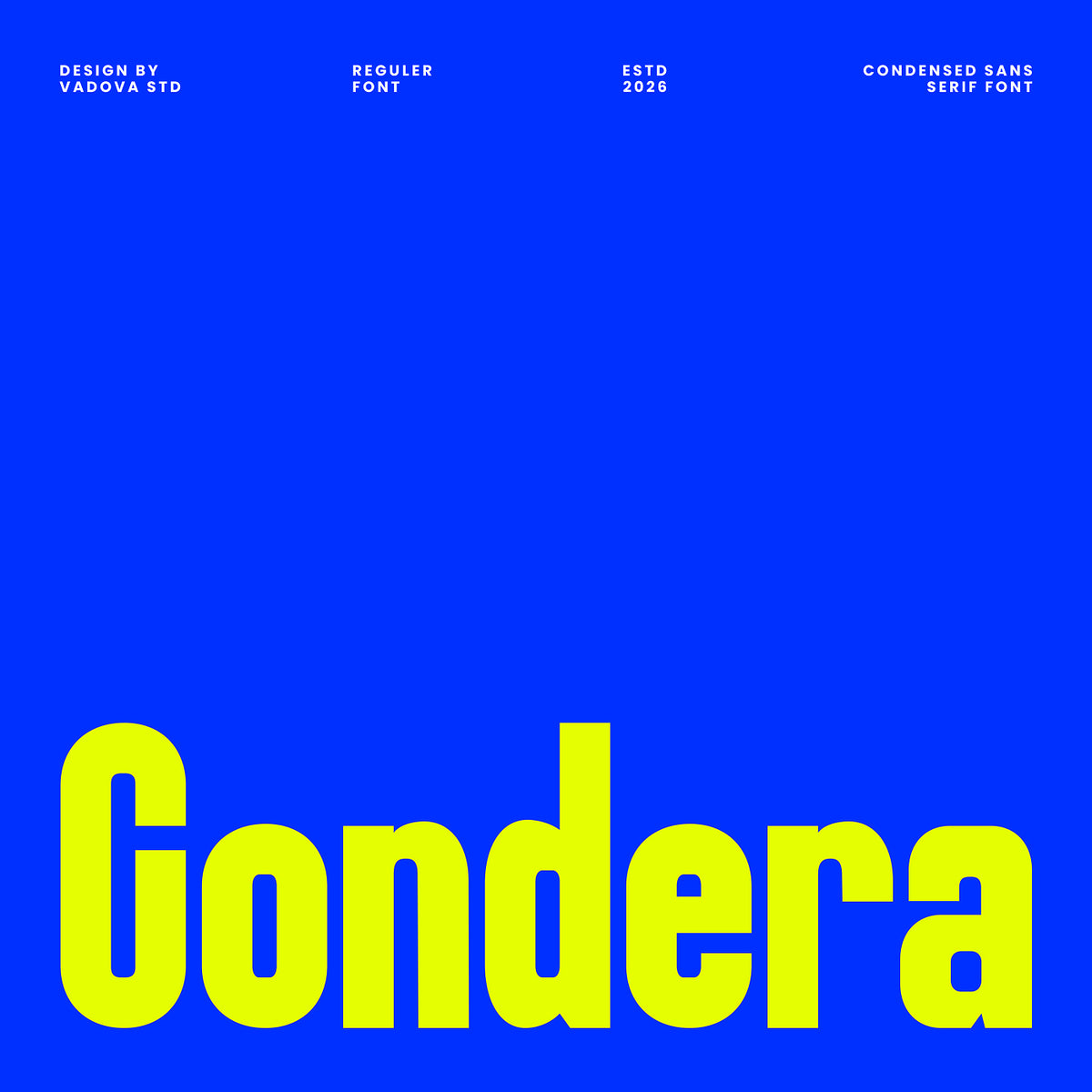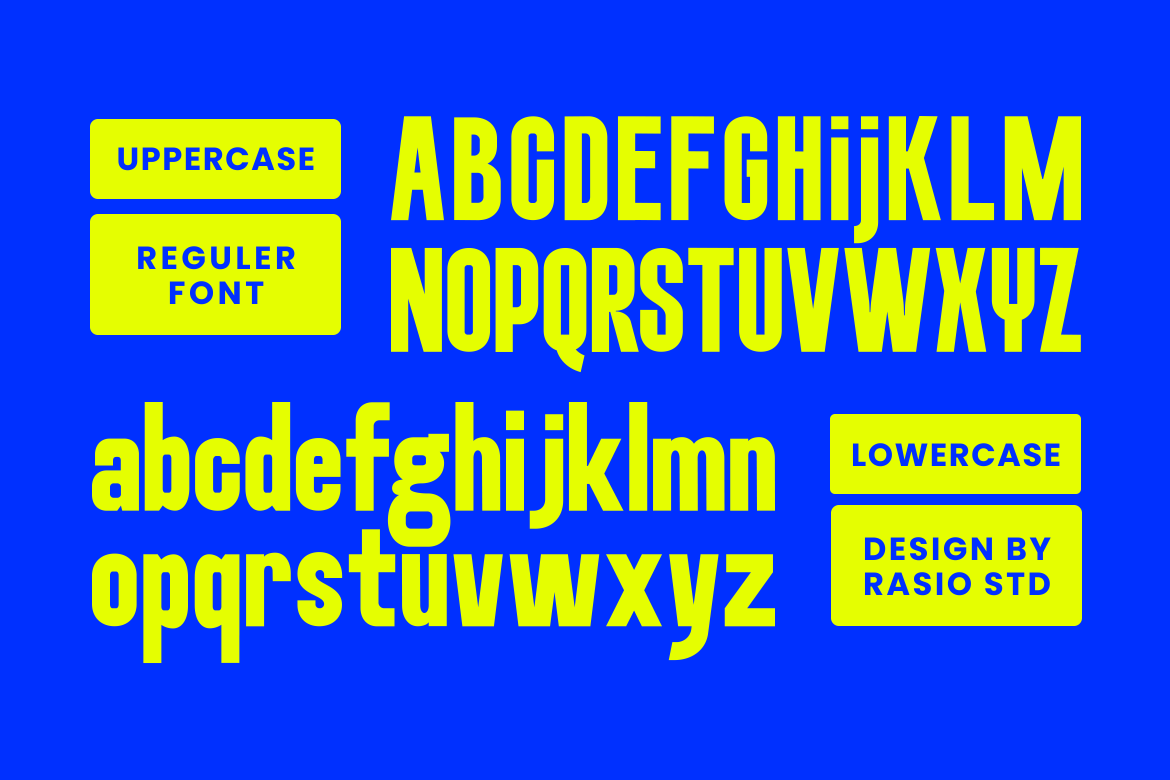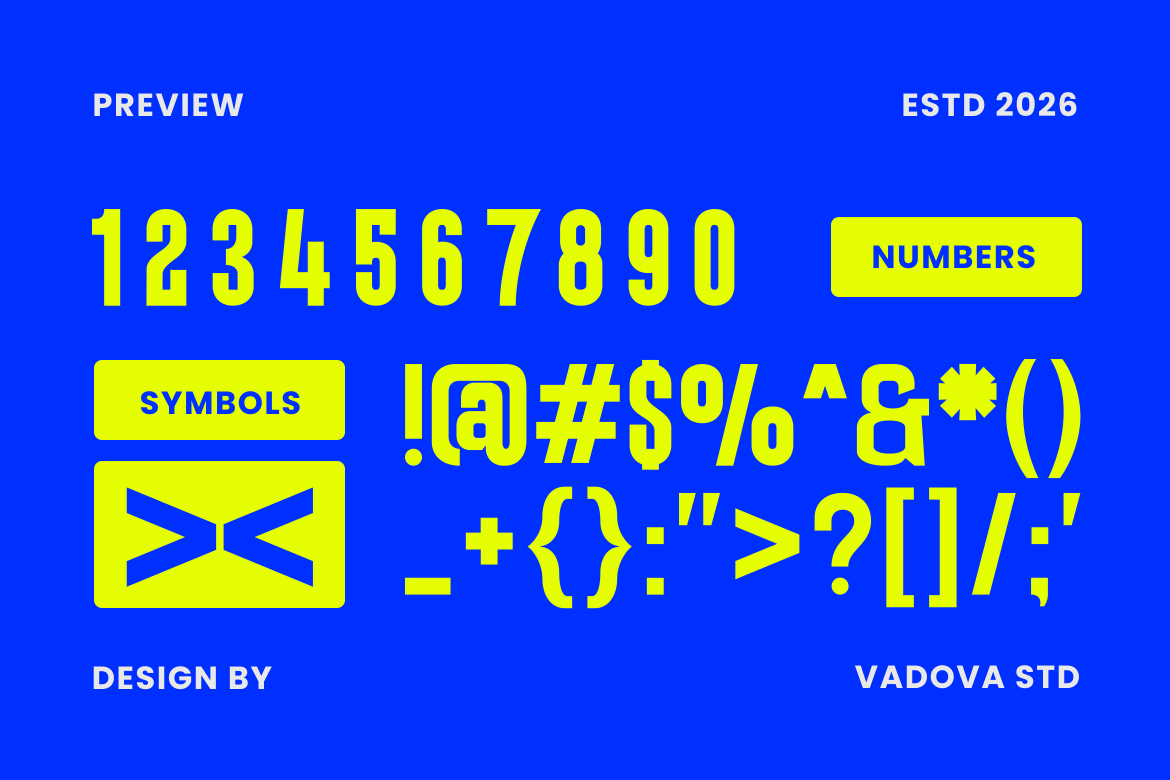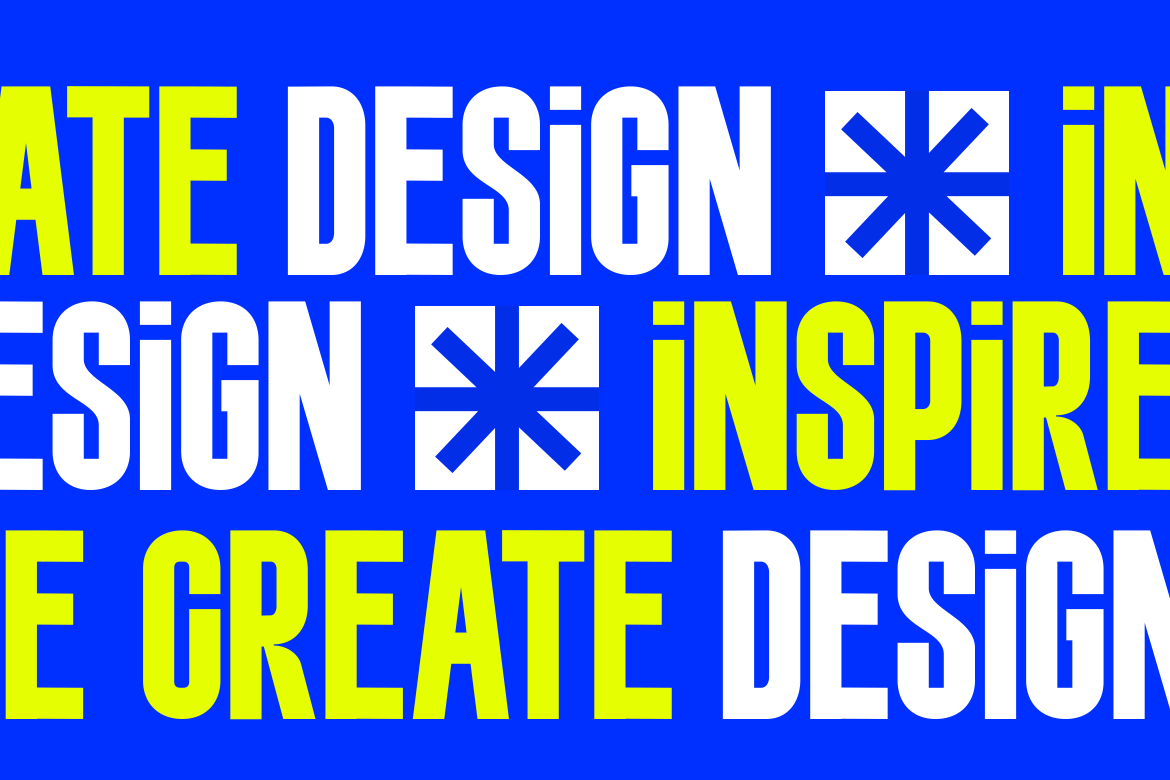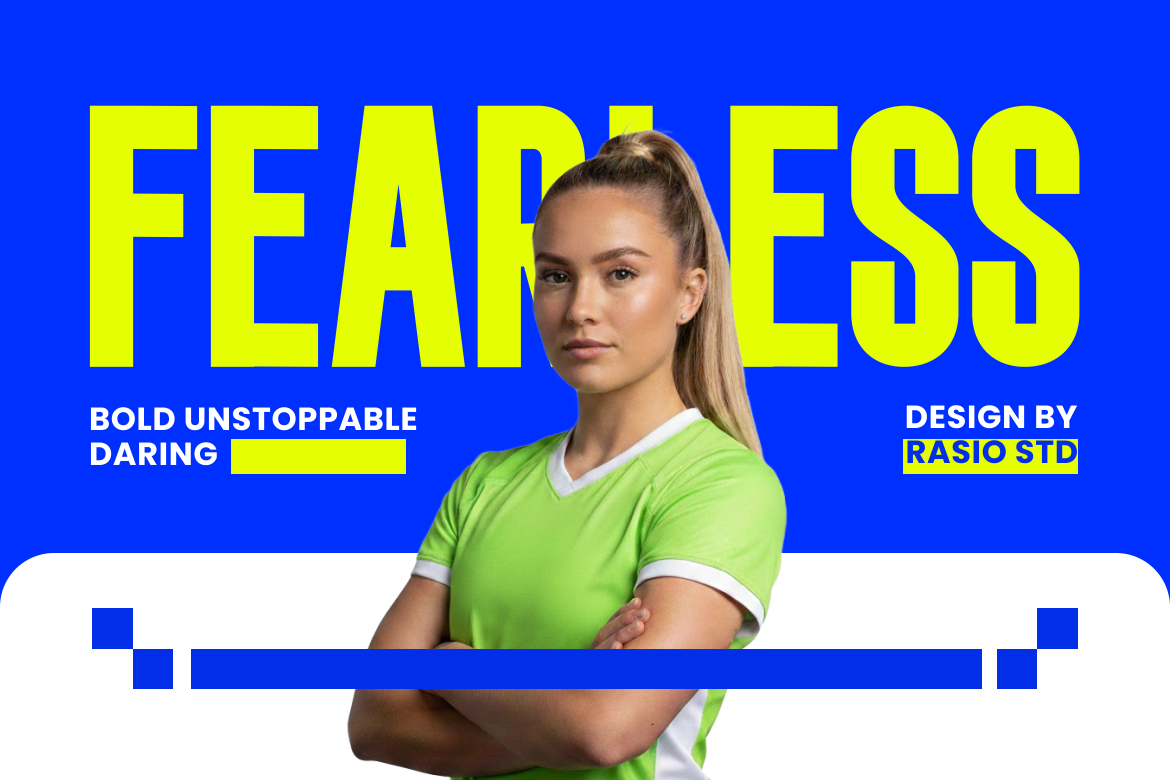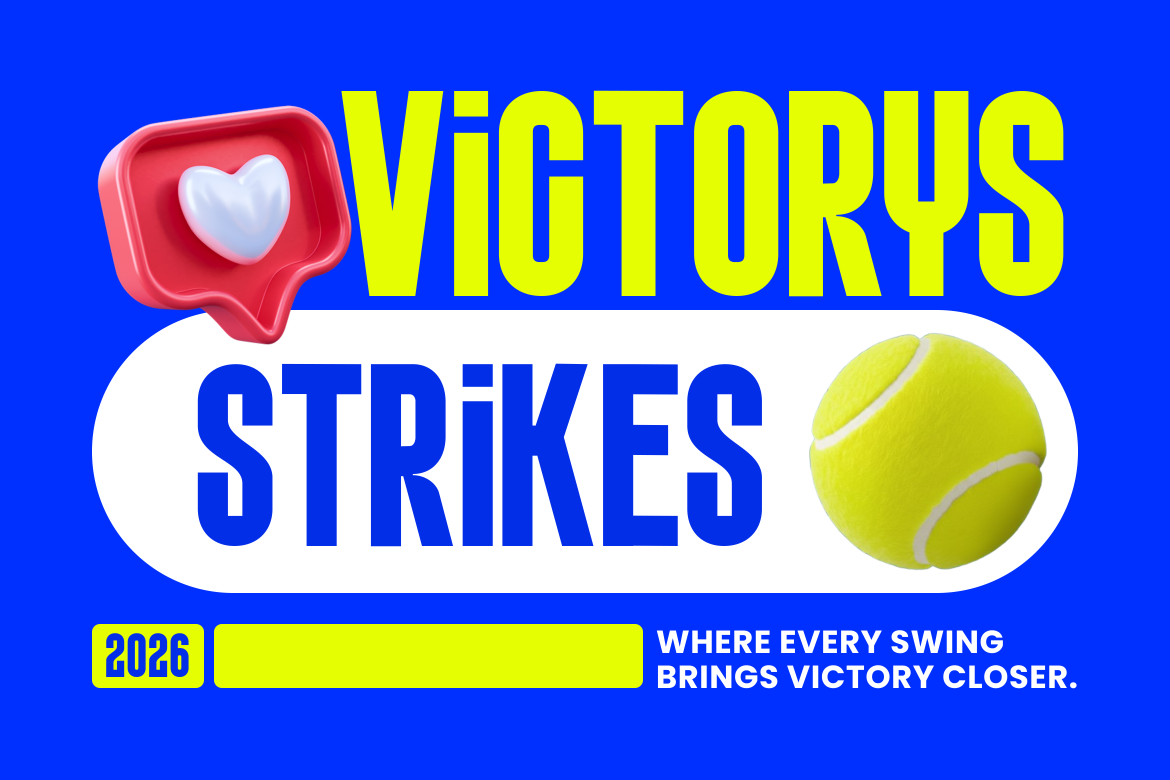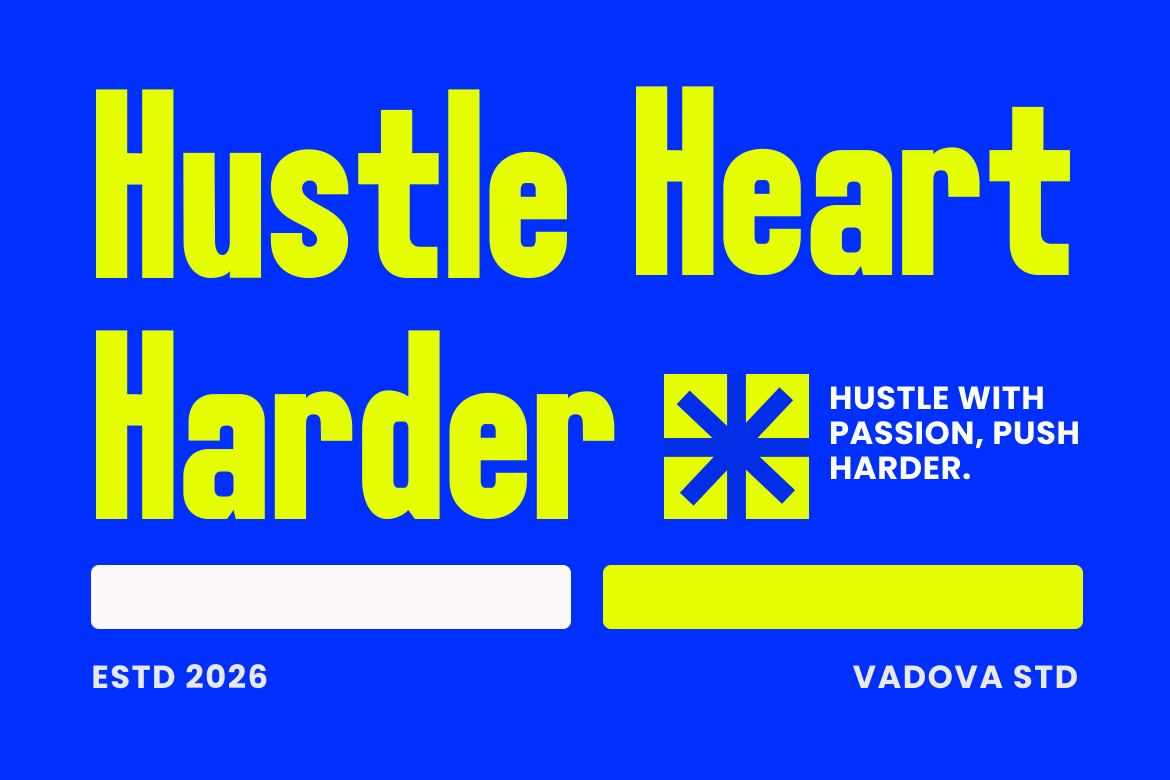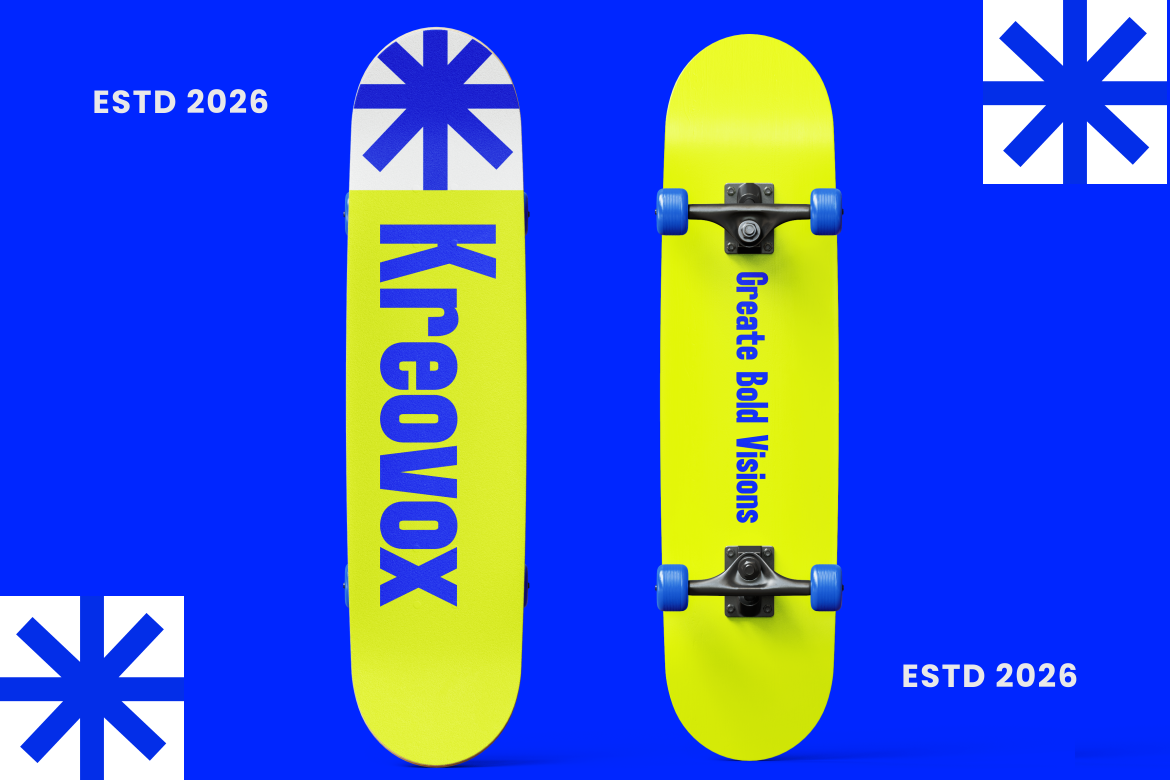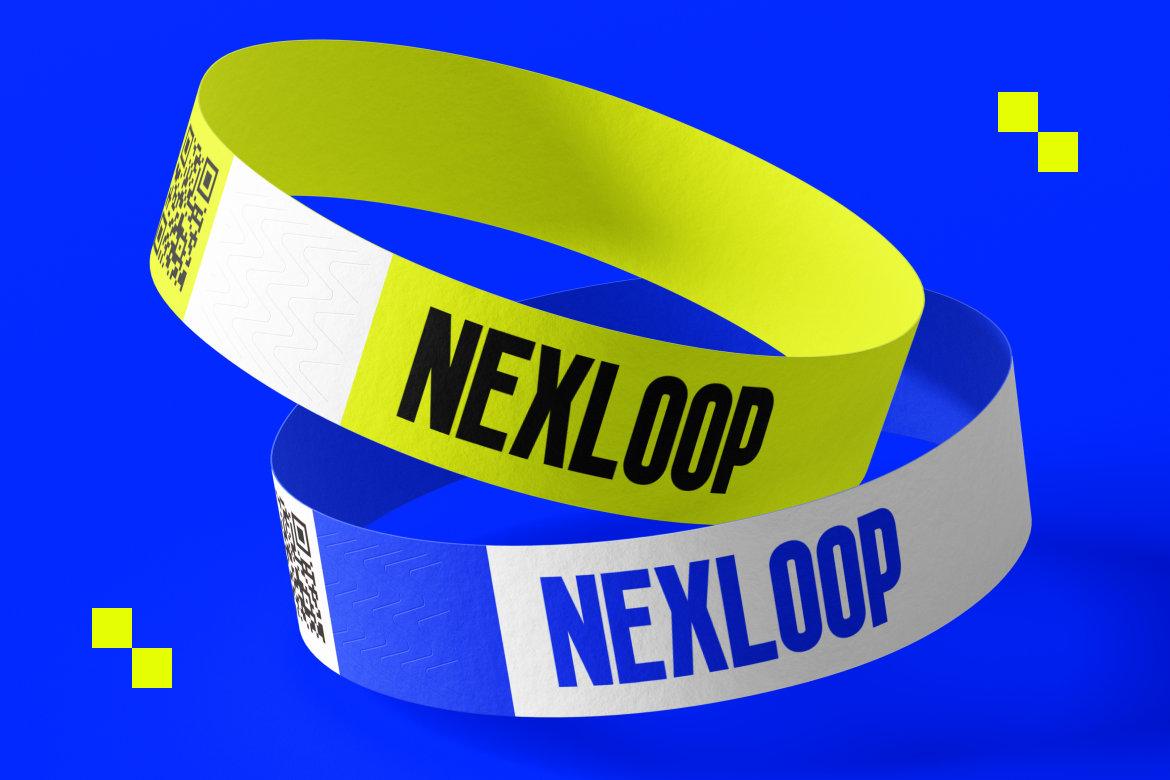
Condera Condensed Sans Serif Font
Condera is a bold condensed sans serif font designed for maximum impact and space efficiency. With its tall proportions, strong vertical rhythm, and clean geometric construction, Condera delivers powerful headlines while maintaining clarity and balance. The condensed structure allows more content to fit into tight layouts without sacrificing legibility. Its modern and confident personality makes it perfect for branding, posters, editorial titles, sports graphics, and digital campaigns.
Relevance and Uses Cases Condera is ideal for branding systems, sports graphics, streetwear labels, editorial headlines, posters, packaging, event promotions, tech campaigns, and social media marketing. Its condensed form makes it especially suitable for tight layouts, vertical compositions, and bold messaging that needs to stand out instantly.
Condera is a bold condensed sans serif font with tall proportions and geometric construction. It includes uppercase and lowercase characters, numerals, and punctuation, and is available in TTF, OTF, and WOFF formats.